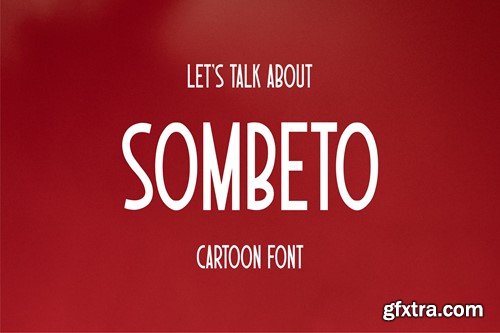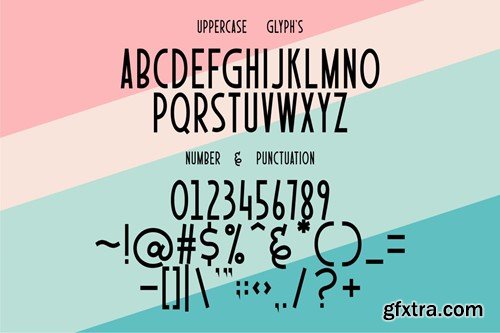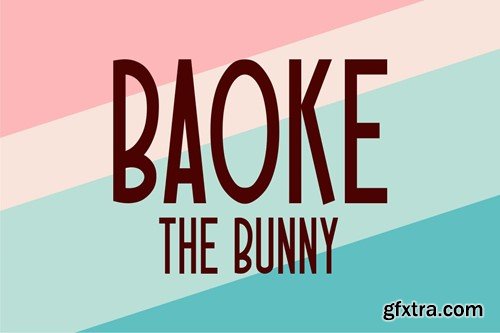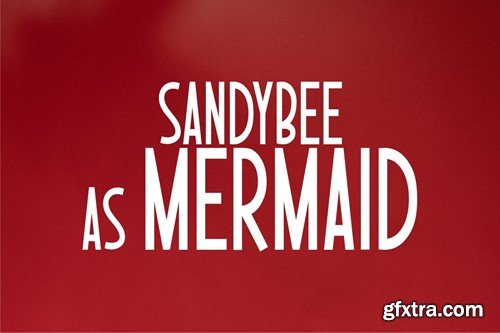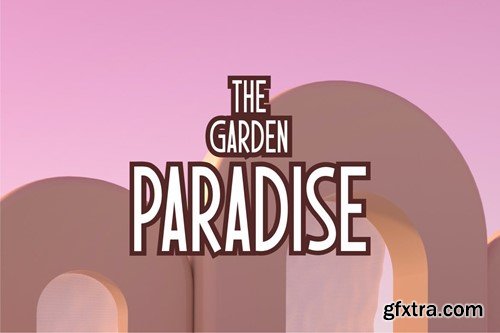
Sombeto Font YC54VK8
Sombeto Font
is a cartoon version of the font that is suitable for children's cinema films, or animal characters and cartoon-related characters. It can also be applied with text effects to make it more supportive in using it. The images shown are for illustration only. available in .OTF and .TTF font formats. Thank You